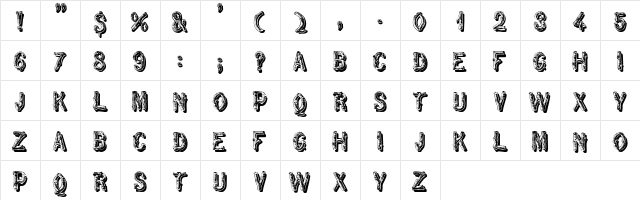
RusticBlackShadow Regular
Design Context for RusticBlackShadow Typeface
RusticBlackShadow is built around its visual character rather than neutral utility — its distinctive forms are designed to make an impression at display sizes.
Font Pairing: Pair with a clean neutral sans-serif for body copy to let RusticBlackShadow's character lead without overwhelming the composition.
Pro Tip: Treat RusticBlackShadow as the centrepiece of your typographic hierarchy. One strong heading set in a decorative face can carry an entire layout.